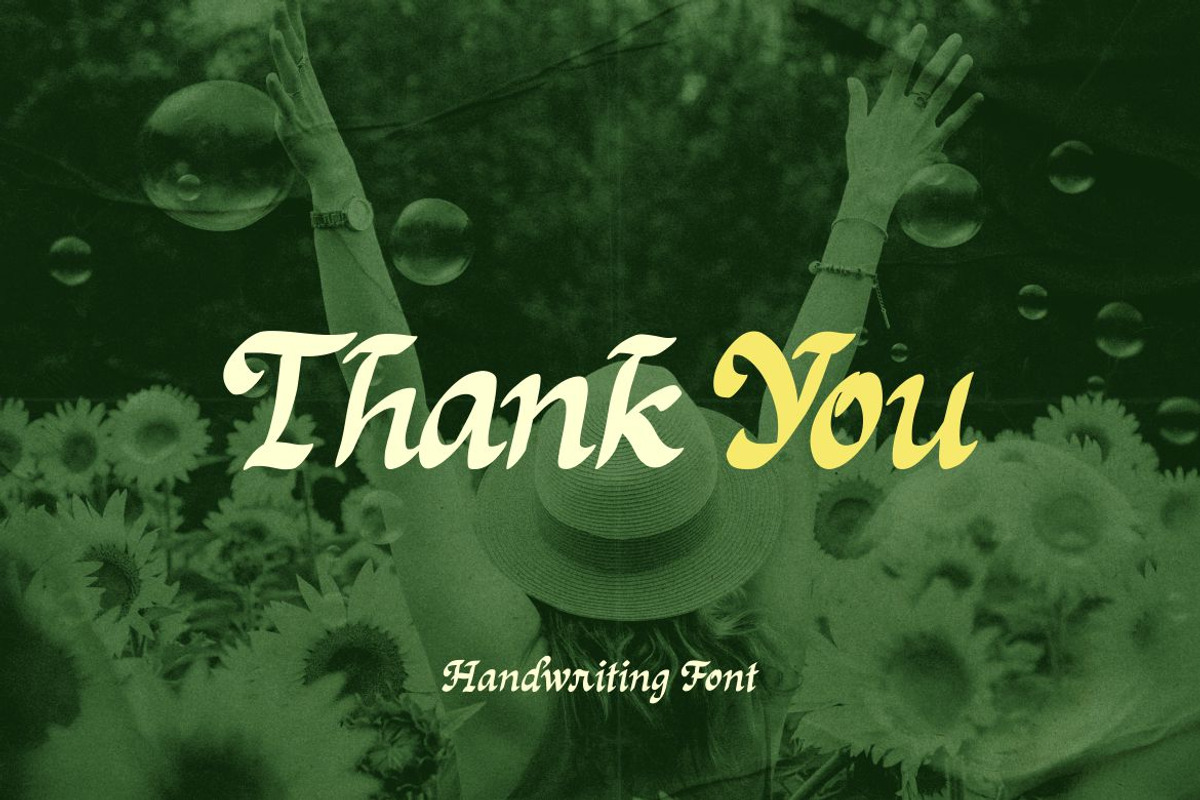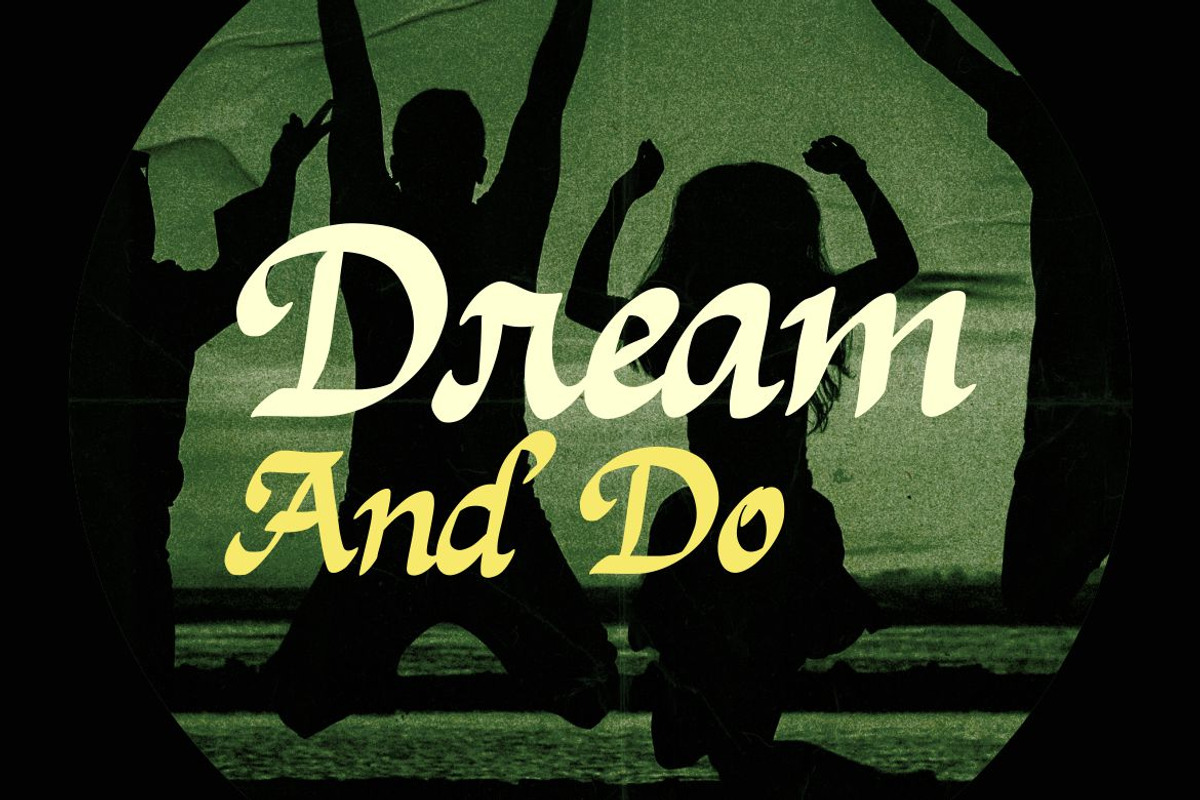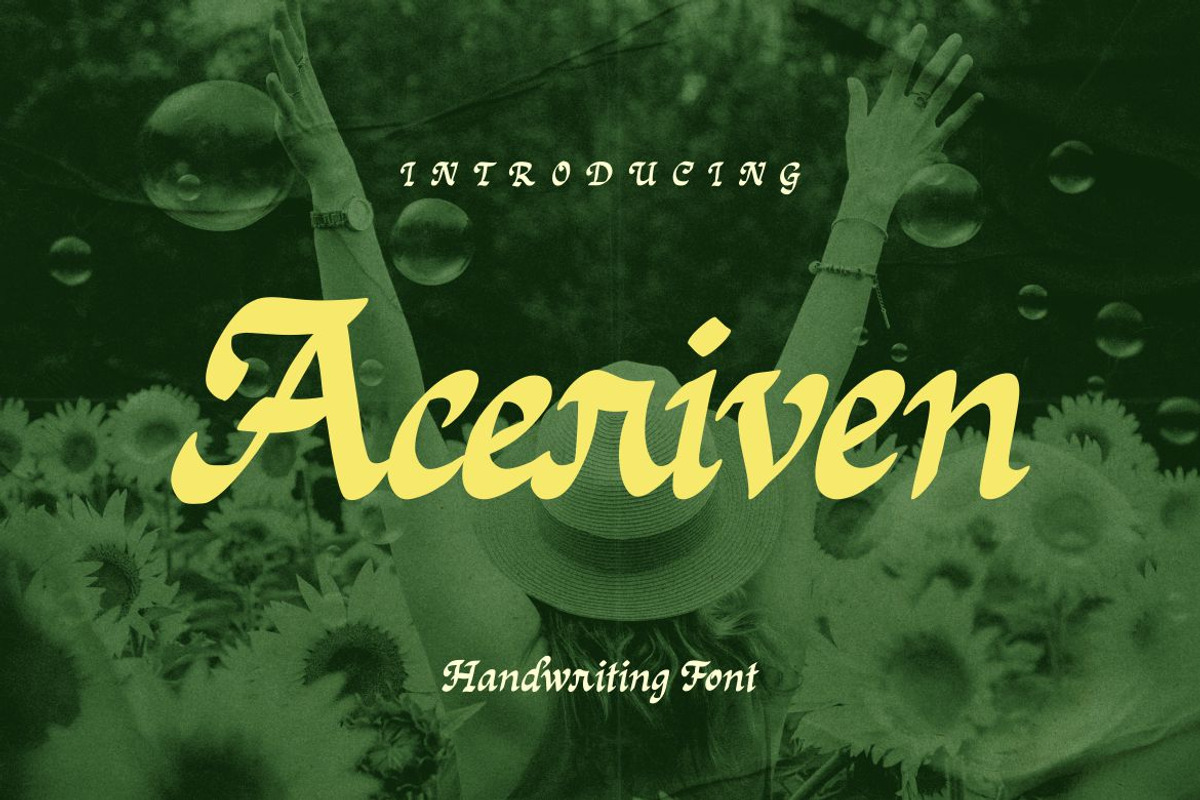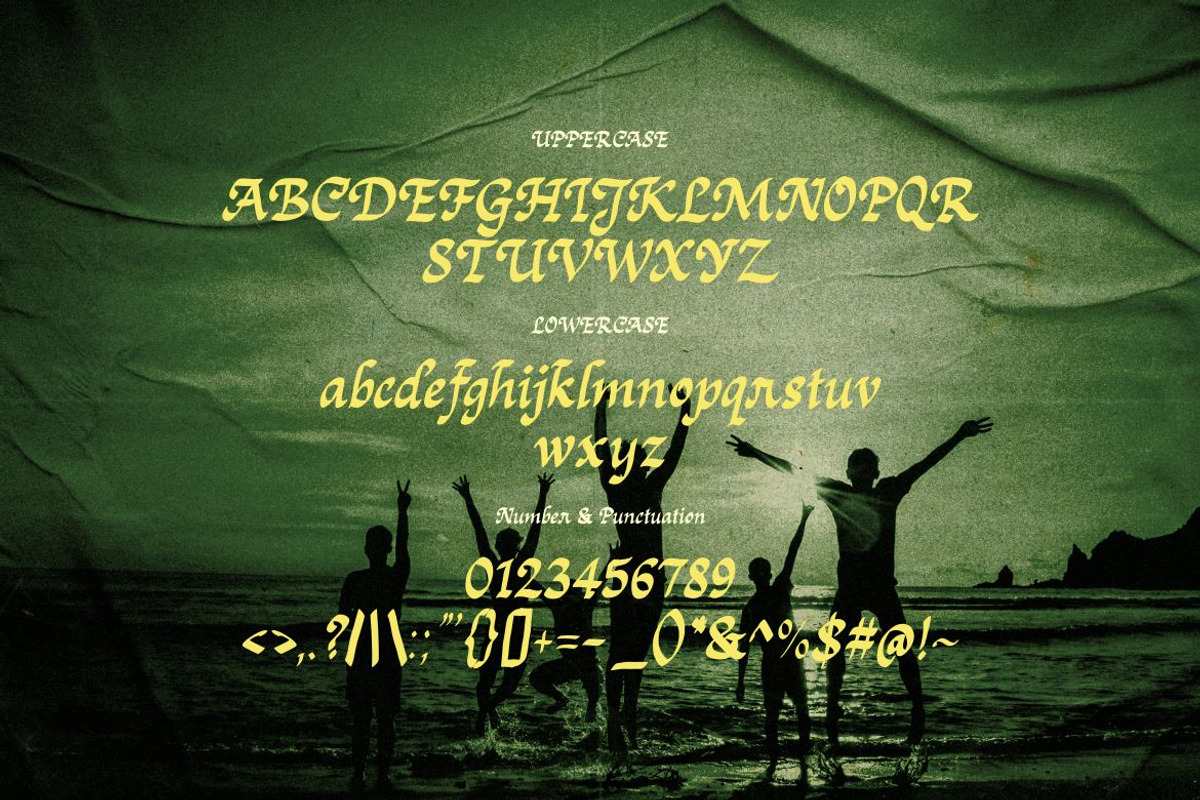
Aceriven Font
Introducing Aceriven , a cool and elegant Modern Script Font. Elegant font feel. This font gives you a beautiful and modern atmosphere. suitable for Logo, Social media, posters, Brochure, And many more.